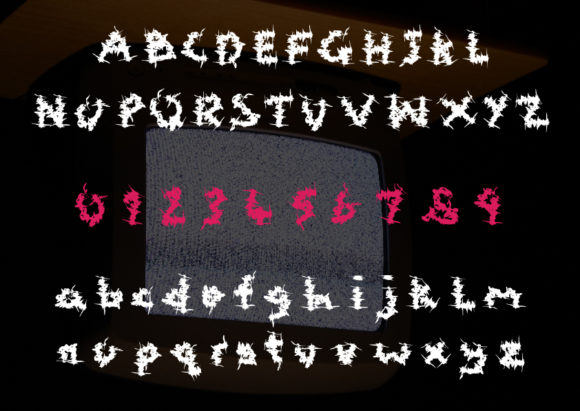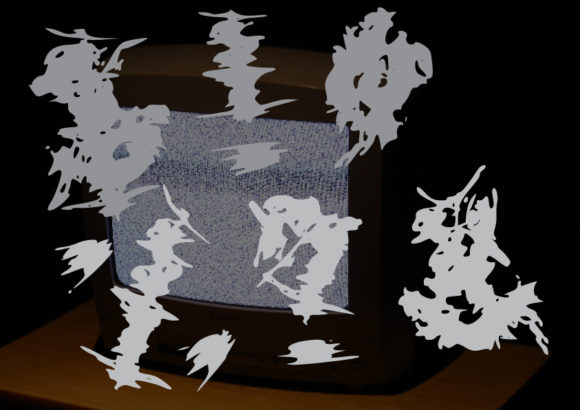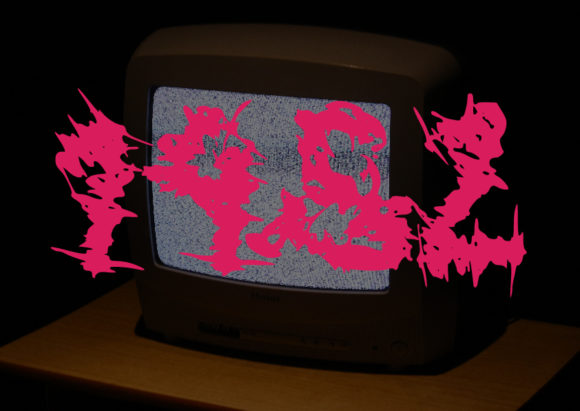
Introduction to Frighting Signal Font
Frighting Signal is a unique display font.
It gives the impression of erratic and extremely static This effected font is perfect for a horror theme or a design that needs a shocking style.
Key Features of Frighting Signal Font